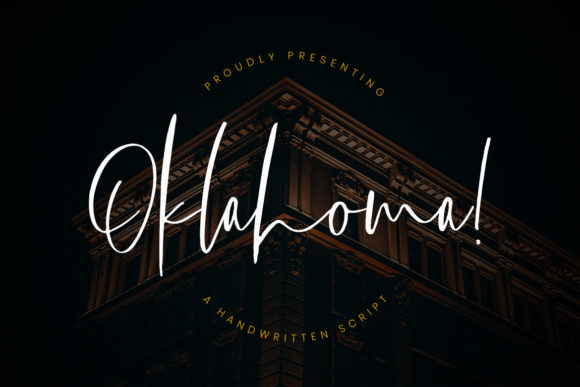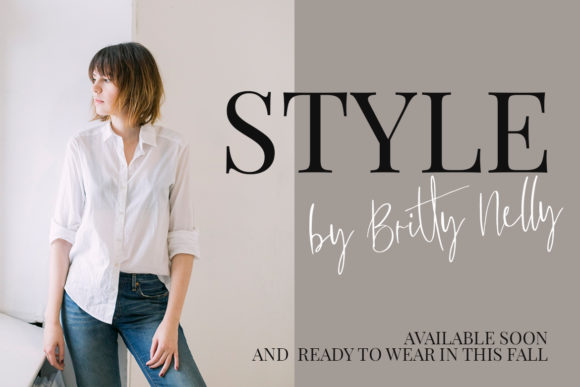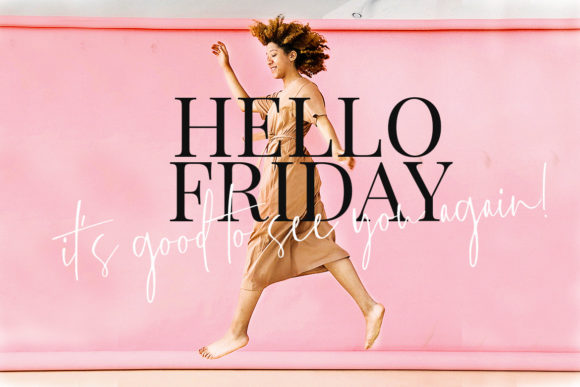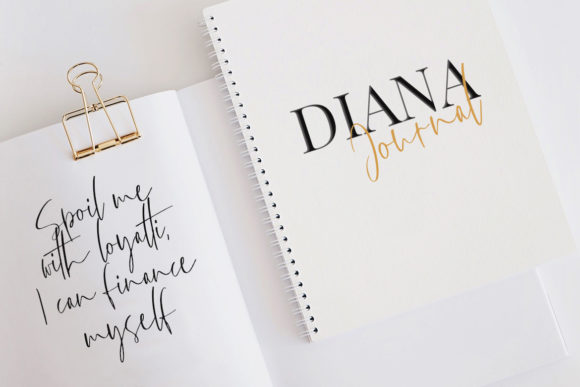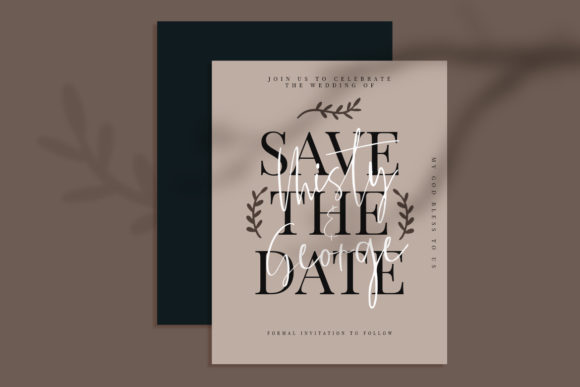
Oklahoma Font
The Oklahoma is a stylish handwritten font. It has a modern, yet classy touch and is perfect for adding an elegant feel to your designs.
It can be used for branding projects, logos, wedding designs, social media posts, advertisements, product packaging, product designs, labels, and every other design which needs a handwritten feel.